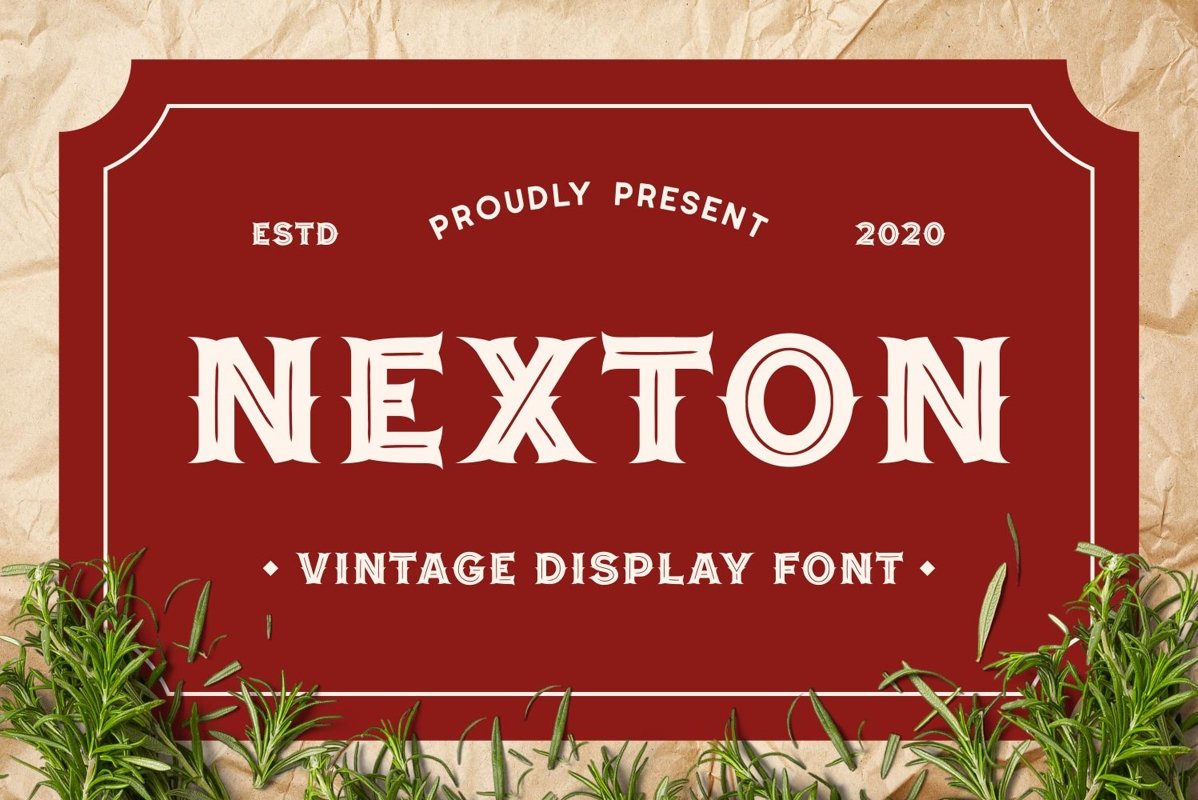
Nexton is crafted serif display come with vintage themes. This font have a classic serif and space in each shape characters. It matches applies in some designs such as the logotype, brand, packaging, quotes, poster, t-shirt, book, invitation and more custom design. The features all-caps, numeral, punctuation & symbol, multilingual support, PUA encoded (fully accessible without additional design software).
Nexton